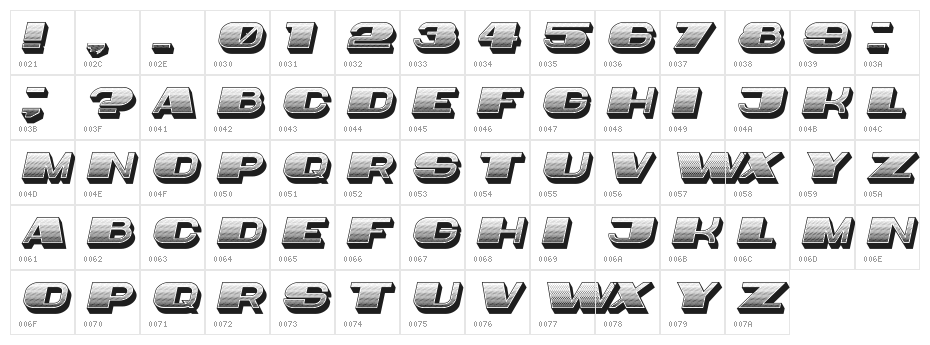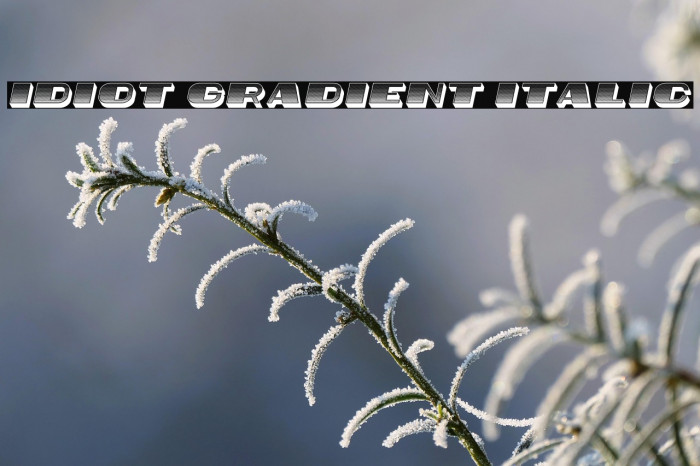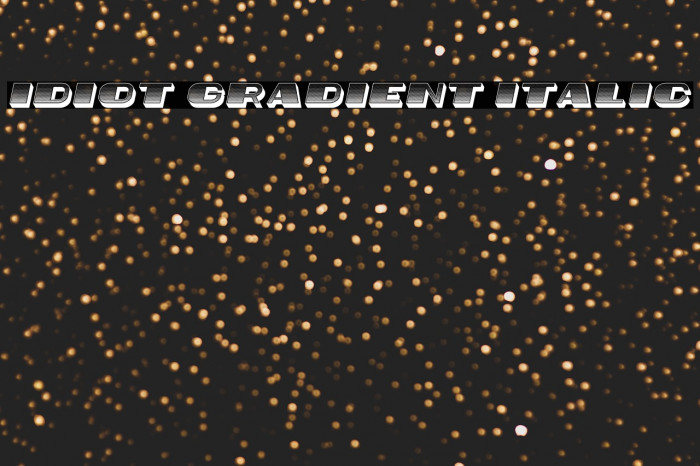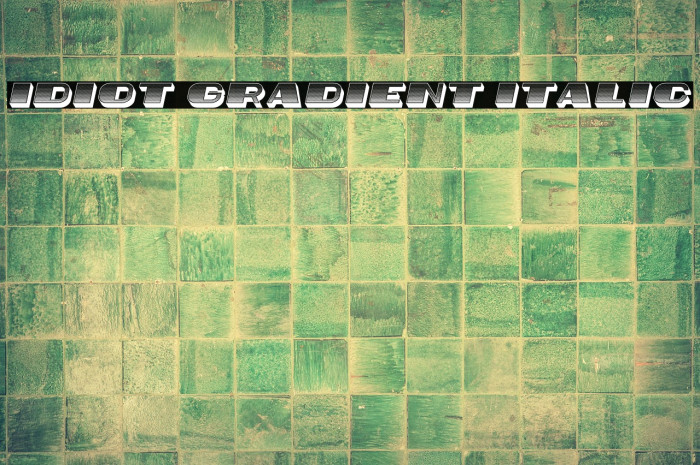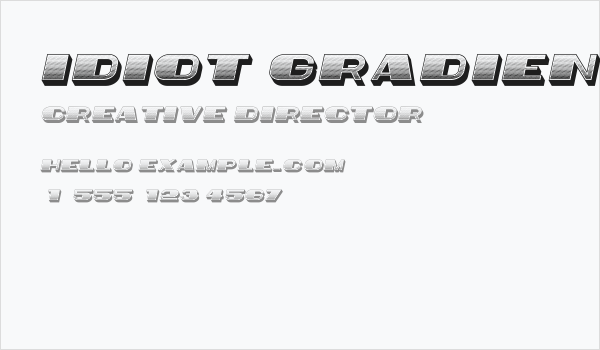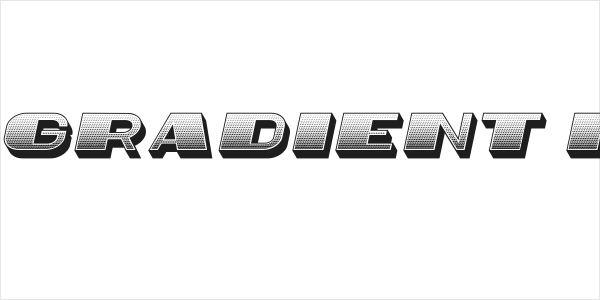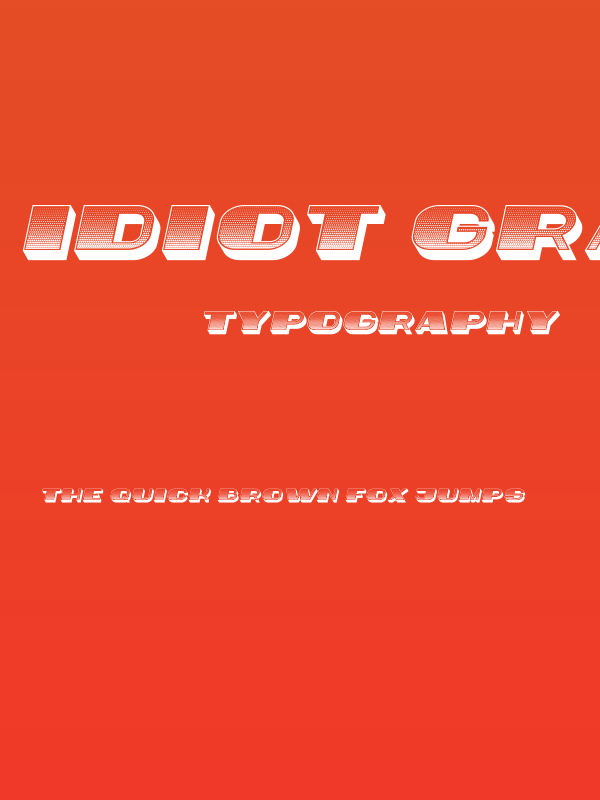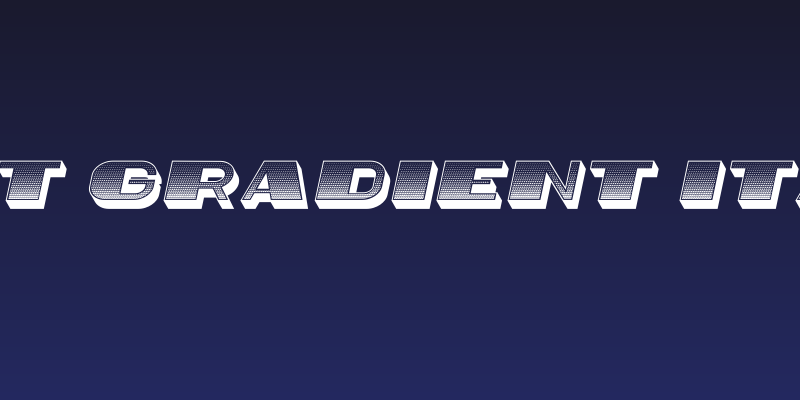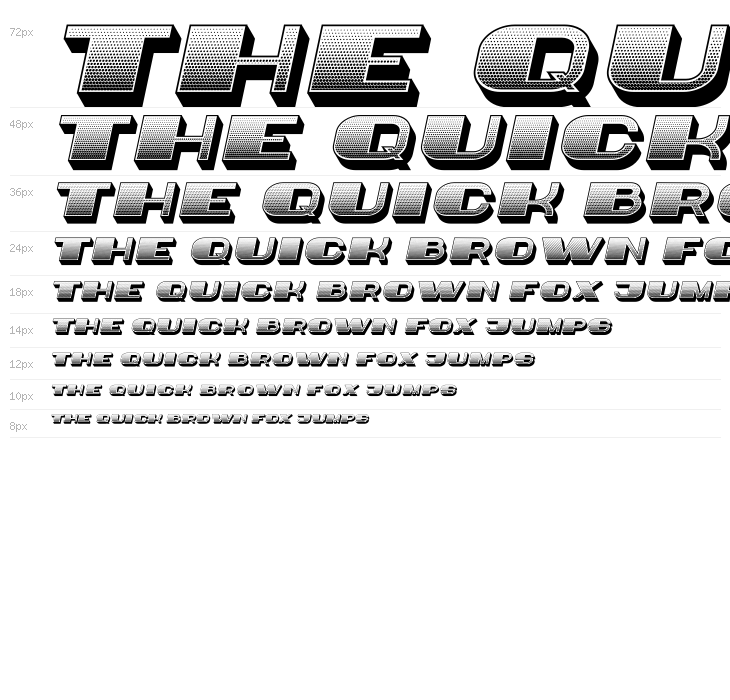
Idiot Gradient Italic Font
Idiot Gradient Italic Description
This font features a bold, three-dimensional style with a gradient effect that gives it a dynamic and eye-catching appearance. The letters are italicized, adding a sense of movement and modernity. Each character is outlined with a shadow, enhancing the 3D effect and making the text stand out. The design is consistent across uppercase letters, numbers, and special characters, maintaining a cohesive look. The font's unique style makes it suitable for projects that require a bold statement or a futuristic touch.